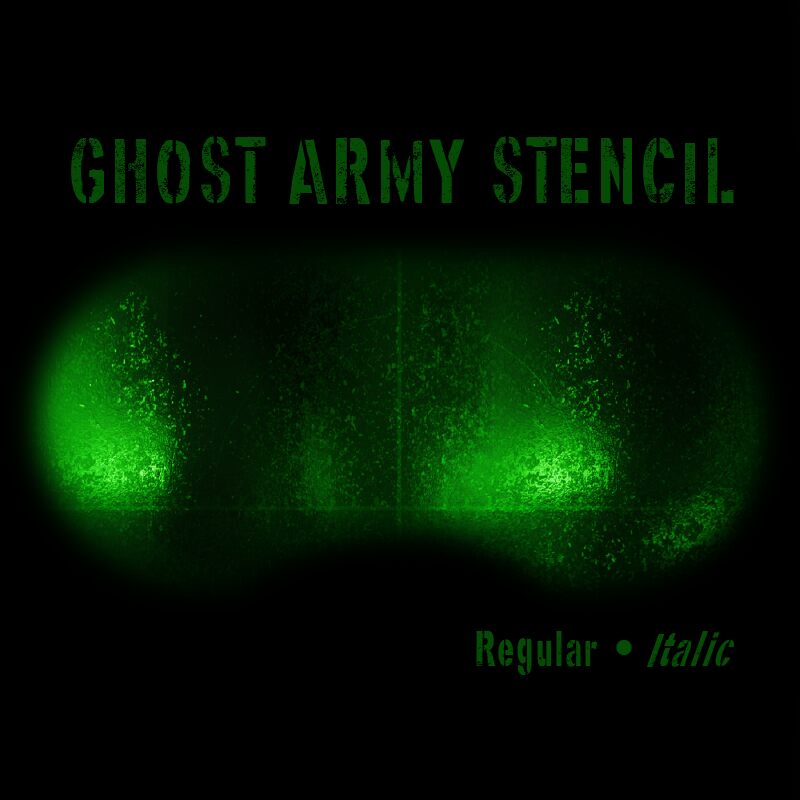
Ghost Army Stencil font family designed by Galdino Otten includes 2 font styles. Inspired by an old militaristic style font, this free font family is ideal for either mimicking historic wartime typeface designs or for offering a modern, yet rugged military look for your branding project. Its simple stencil-like design can communicate strength and functionality. Similarly, the industrial feel and rigid structure of the font imply durability and permanence.
This free font can be used in book cover designs, movie posters, advertisement campaigns, and more. The font evokes authority and precision and this character can convey weight in academic and business sectors. Websites and web applications can also make use of it in a number of ways. Ghost Army Stencil is an excellent choice for both online and offline publishing. Furniture, apparel, home goods, and grocery packages might also benefit from the innovative usage of the font.